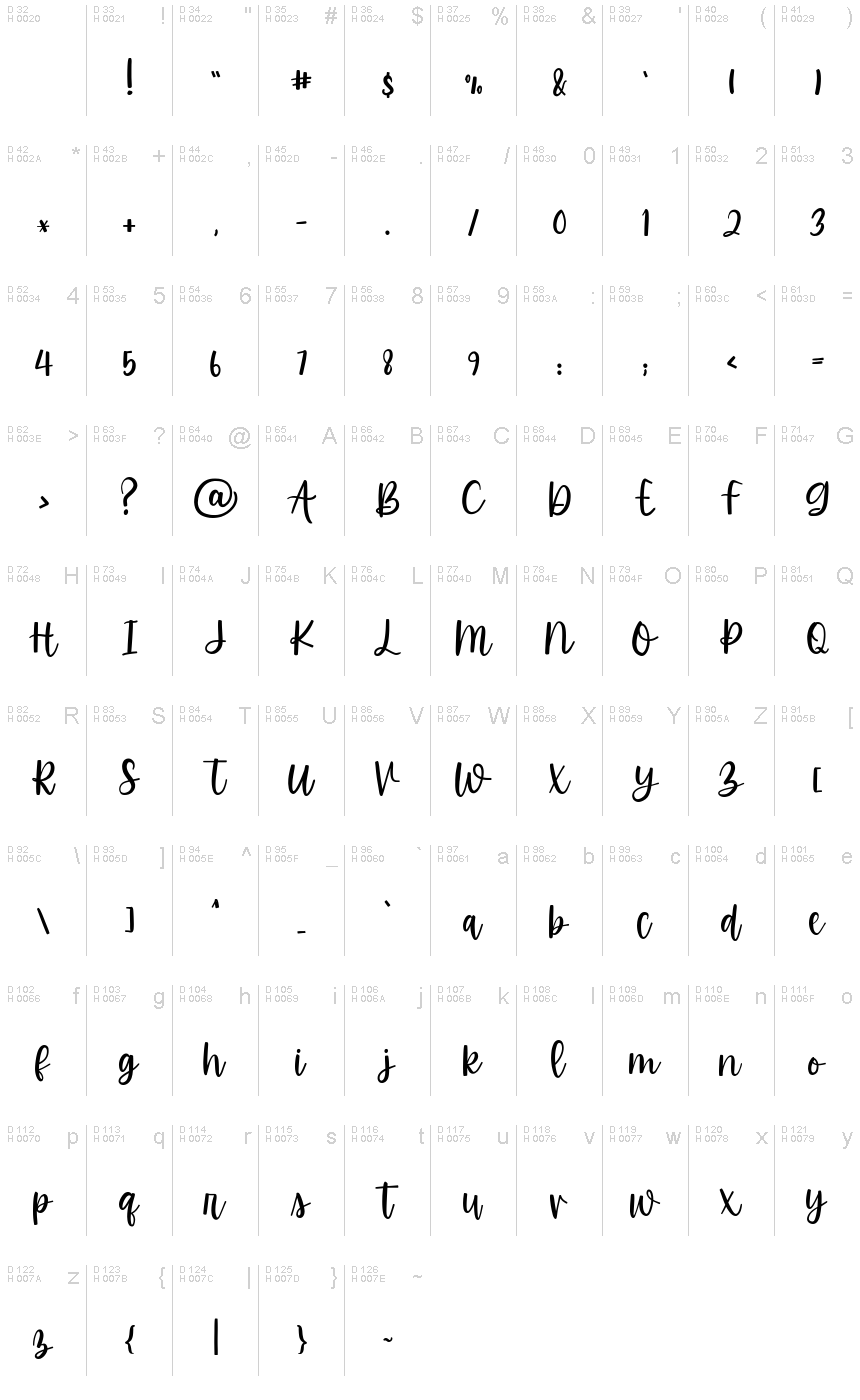
Beautiful Barbie
Embracing the delicate and whimsical charm of the handwritten script, the Beautiful Barbie font by Goodrichees captivates with its fluid strokes and playful personality. This visually appealing typeface exudes a sense of feminine elegance, making it a delightful choice for a wide range of design projects.
The Beautiful Barbie font's meticulously crafted letterforms effortlessly convey a sense of warmth and approachability, making it an excellent selection for branding, packaging, and marketing materials targeting a youthful, female-centric audience. Its versatility extends beyond these applications, as the font's distinctive style can also elevate invitations, greeting cards, and other stationery designs, infusing them with a touch of whimsy and refined sophistication.